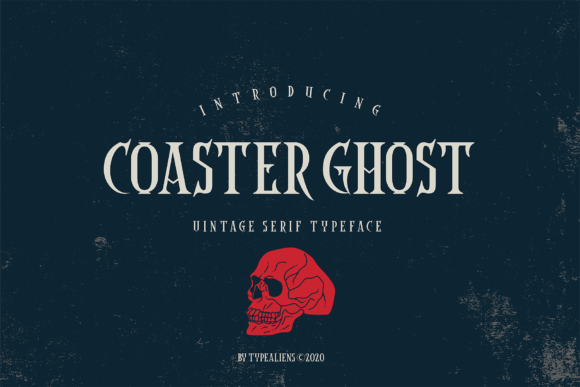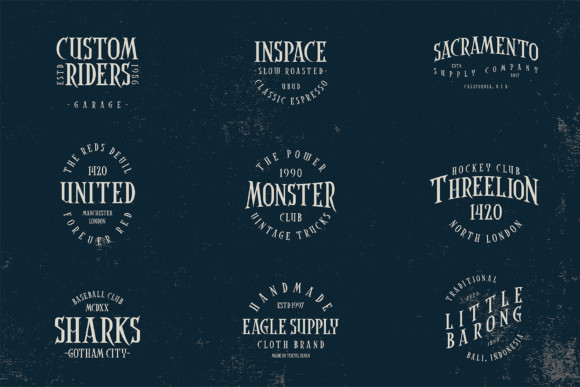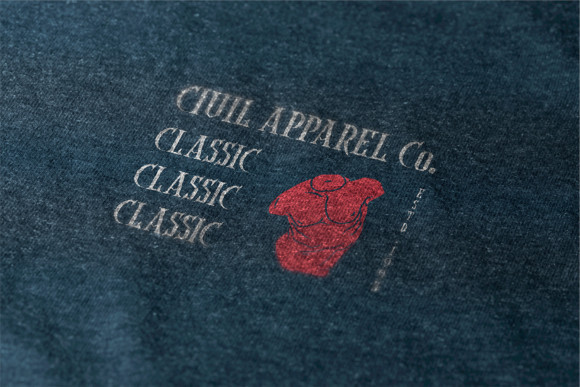
Coaster Ghost Font
Coaster Ghost is a serif font with a unique look. It features a vintage and gothic style that makes it perfect for creating original projects.